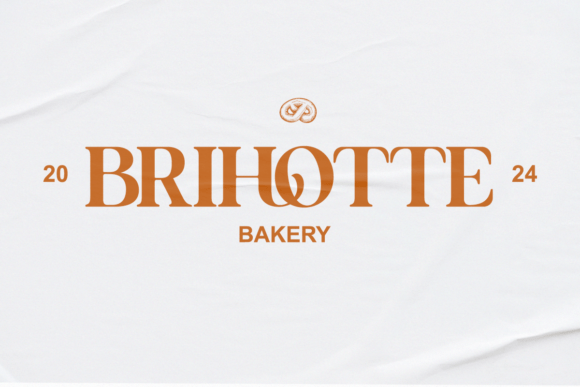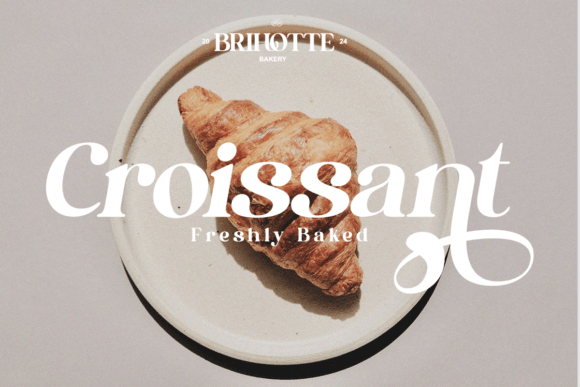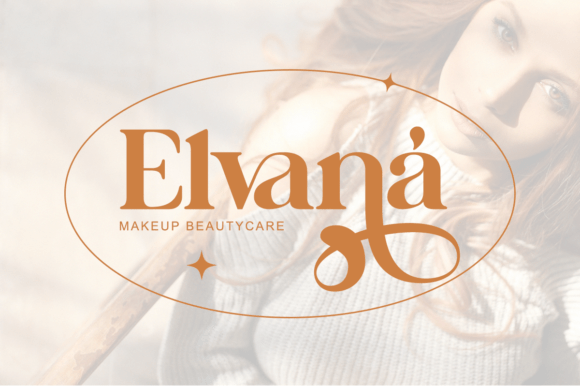
Introduction to Mobigail Font
Introducing Mobigail, a Refined Serif Display font that effortlessly merges classic elegance with contemporary, fluid curves to deliver a truly stunning aesthetic.
This exquisite Mobigail font stands out with its perfect balance of high-contrast serifs and captivating swash alternates, particularly visible on the lower-case ascenders and descenders, which gracefully flow and dip like a signature Its refined, warm, and inviting character makes it a powerhouse for luxury branding and high-end editorial design.
Key Features of Mobigail Font